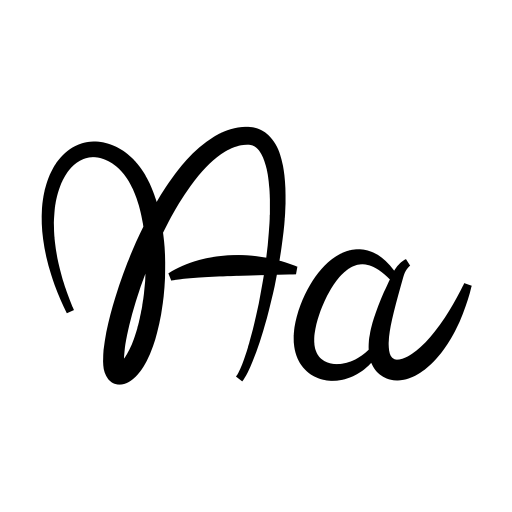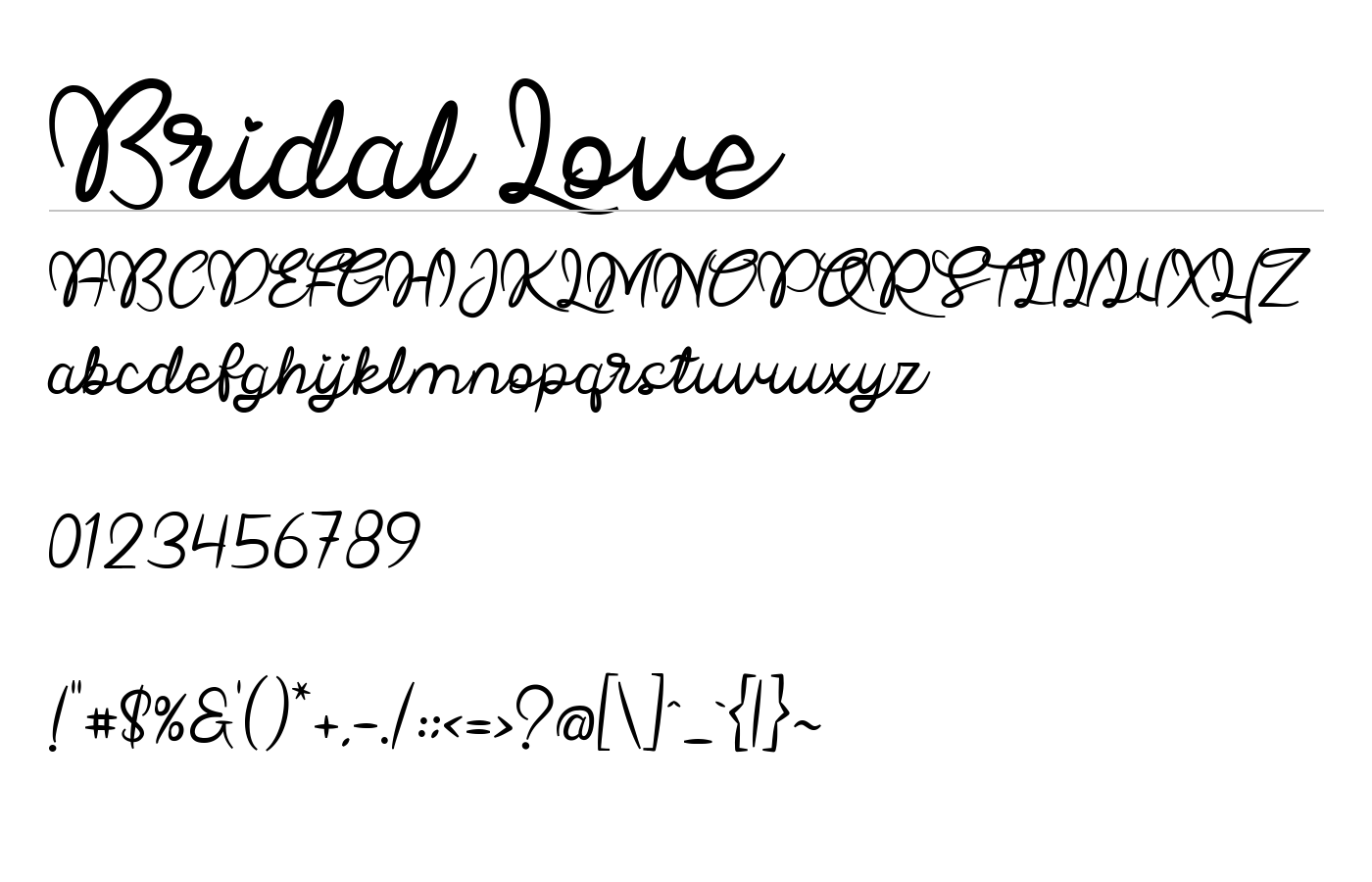
Bridal Love is a delicate and elegant script font with a playful, hand-drawn feel that brings a romantic, personal touch to any design. Its smooth, flowing strokes and charming character details make it perfect for wedding invitations, greeting cards, and feminine branding where warmth and intimacy are key. This font shines best in decorative uses, adding a graceful and joyful vibe to headlines, logos, and special occasion designs.
| Font family | Bridal Love Font |
| Designer | Hendra Pratama |